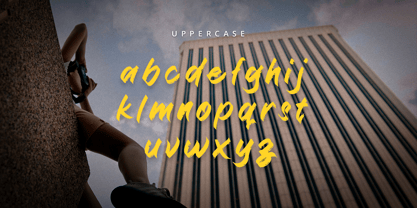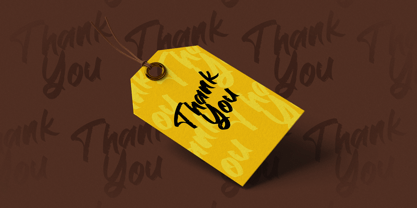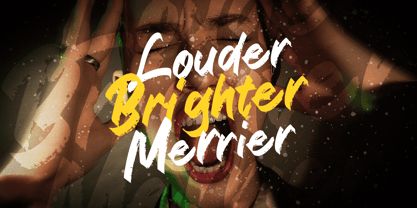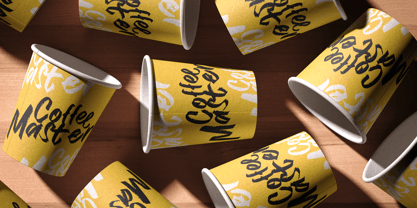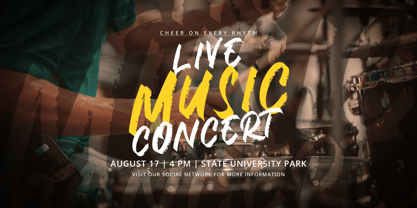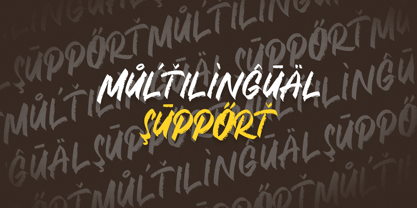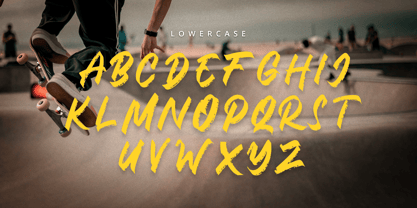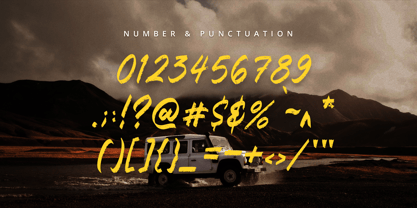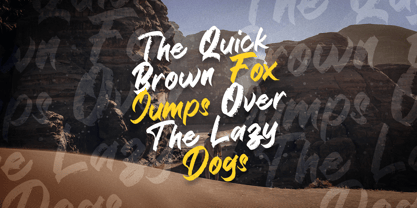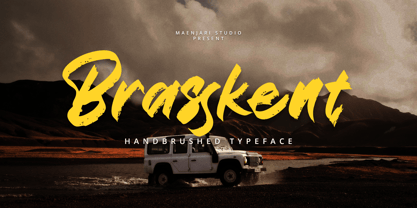
Brasskent
Die Schriftfamilie Brasskent wurde von Maenjari entworfen und von Maenjari Std veröffentlicht. Brasskent enthält 1 Stile. Mehr über diese Familie
Brushkent is a bold and expressive calligraphic brush typeface designed to infuse raw energy and authentic hand-painted character into your projects. With its natural brush strokes, textured edges, and dynamic letterforms, Brushkent offers a modern handcrafted aesthetic that excels in various applications, including branding, posters, packaging, social media, apparel, music covers, and adventure-themed visuals. Crafted with an organic brush flow and a strong personality, Brushkent seamlessly blends readability with artistic expression, making it an ideal choice for creators seeking typography that feels powerful, stylish, and vibrant. Whether you're designing a striking logo, a cinematic poster, lifestyle branding, or an eye-catching quote design, Brushkent provides a unique handcrafted flair that immediately captures attention.